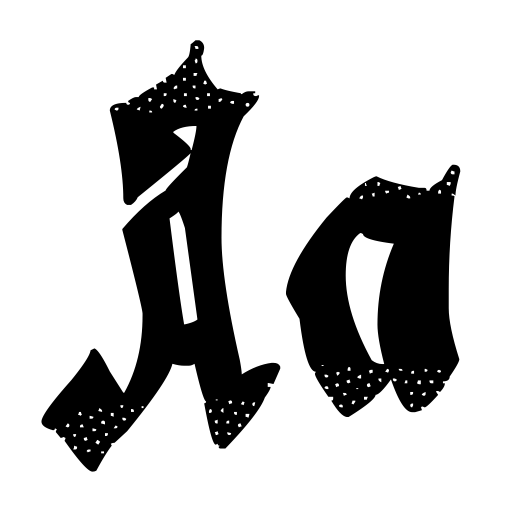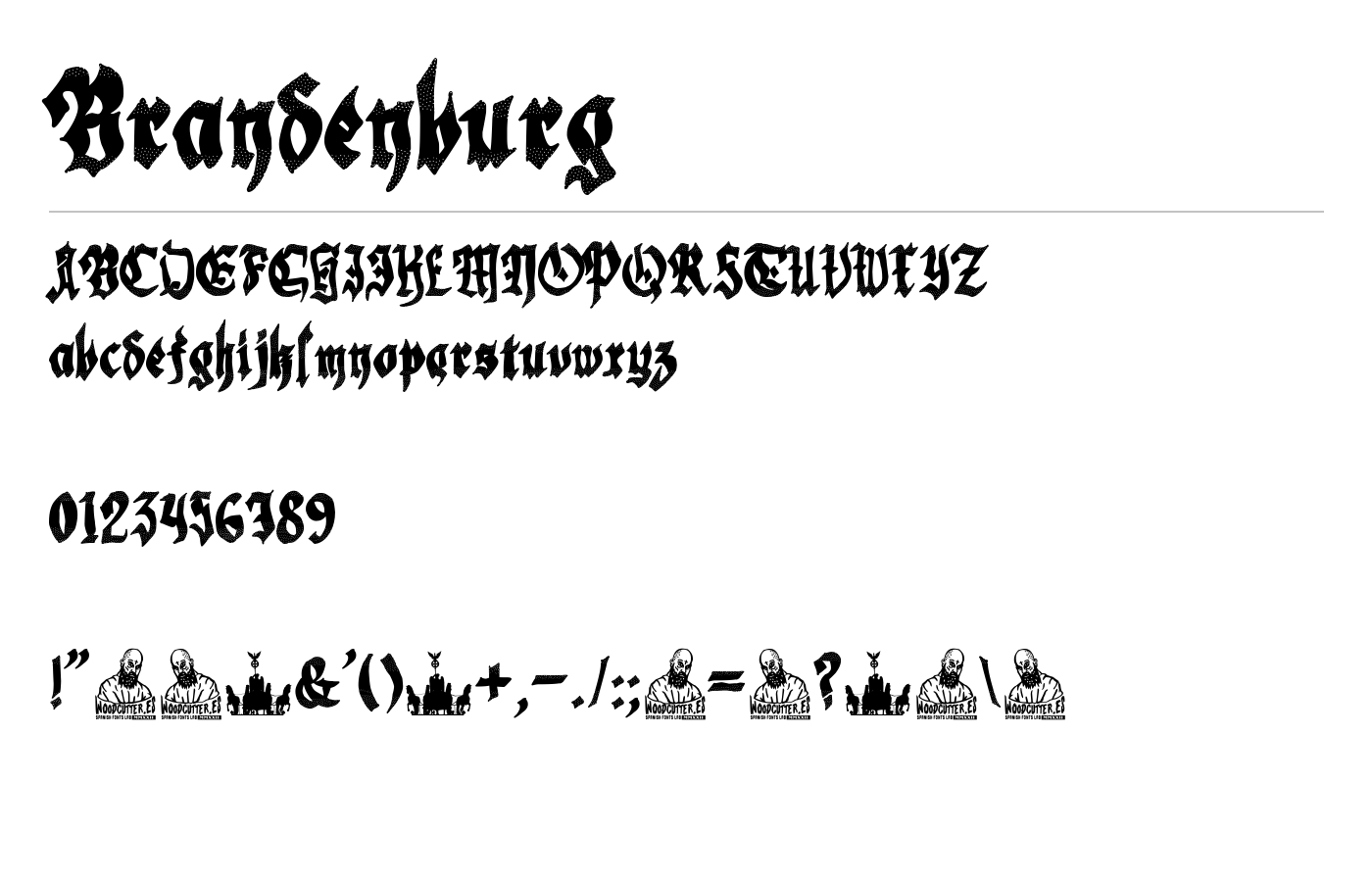
Brandenburg is a bold blackletter serif font that features thick, angular strokes with high contrast and elaborate, sharp details, evoking a historic and gothic feel. Its dense letterforms and decorative flair make it ideal for striking headlines, logos, or designs aiming for a dramatic, traditional, or medieval atmosphere. This font works best in display settings where its unique style can stand out and capture attention.
Brandenburg Font
About Brandenburg Font